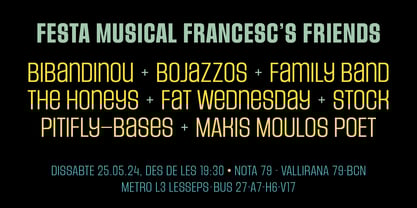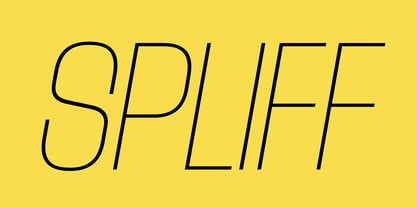
Unicaster
by Type-Ø-Tones
The Unicaster Font Family was designed by José Manuel Urós and published by Type-Ø-Tones. Unicaster contains 6 styles and family package options. More about this family
Unicaster is a grotesque typeface with a unified case height for both upper and lower case. This style, known as Unicase, provides a strong composition appropriate for short texts, titles, packaging and similar forms that fall into the ‘Display’ category.
The original reference to the typography is found on the back cover of the album Part One by the psychedelic group West Coast Pop Art Experimental Band (WCPAEB), published in 1967, where the extensive name of the group appears written in these characters with an irresistible charm.
We did some research on the original font and, finding no clues, we decided to offer our personal view of the model.